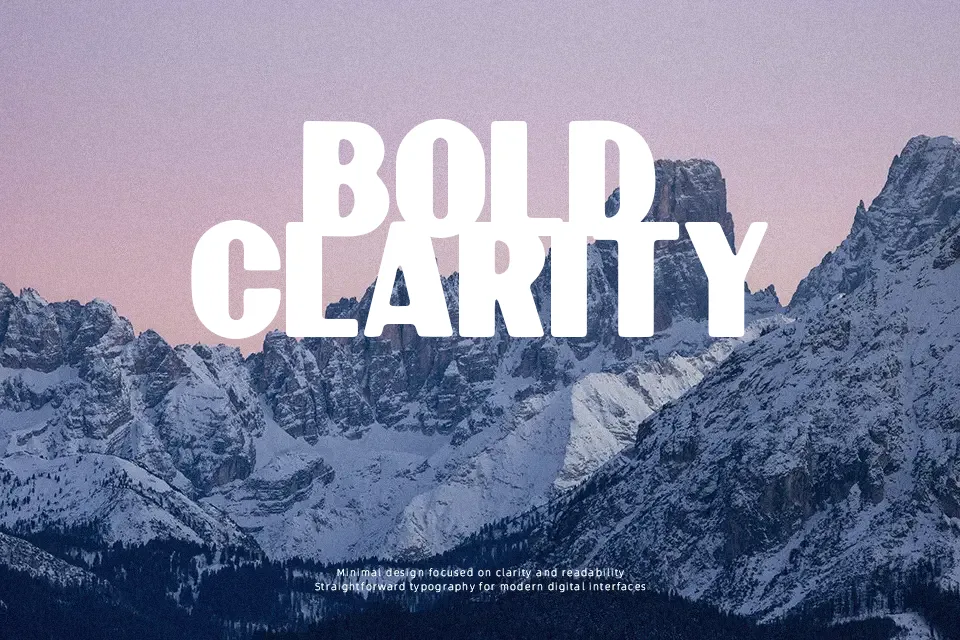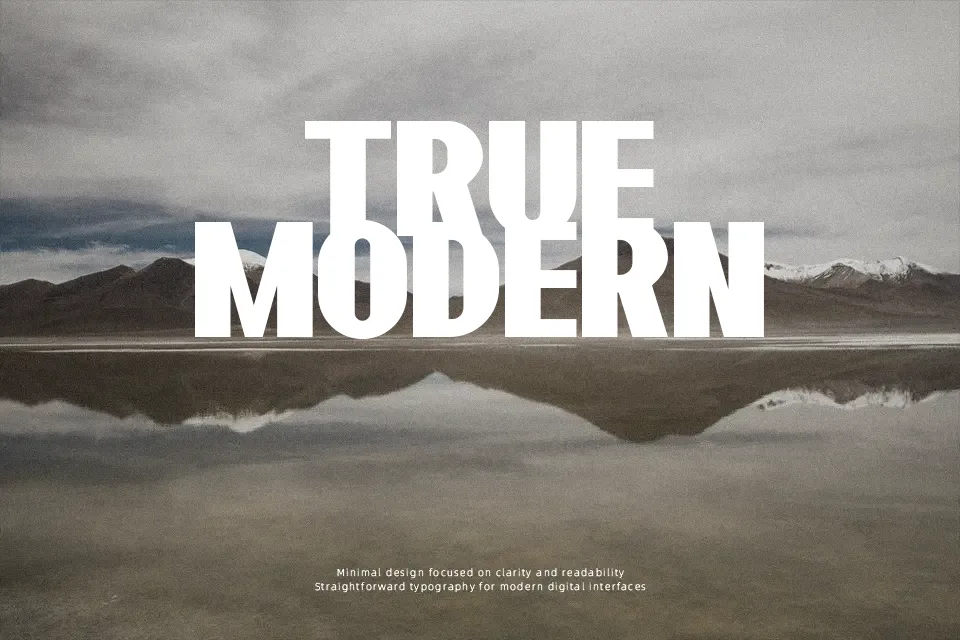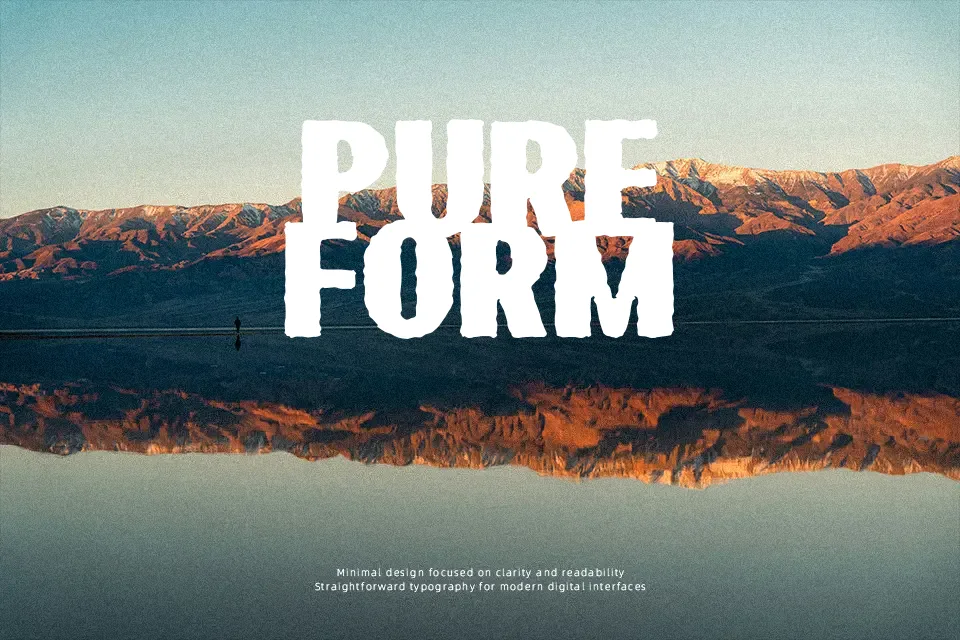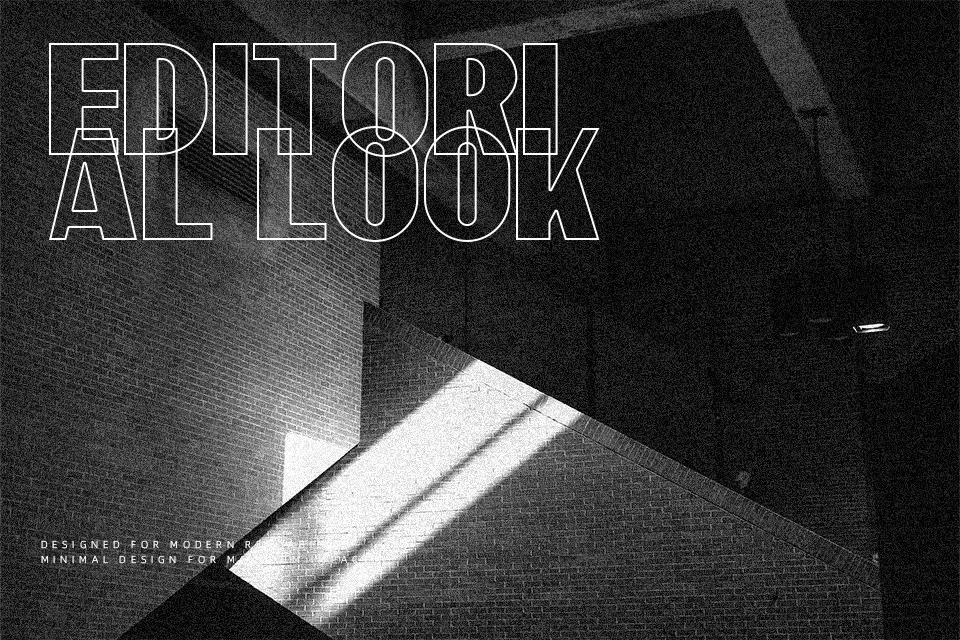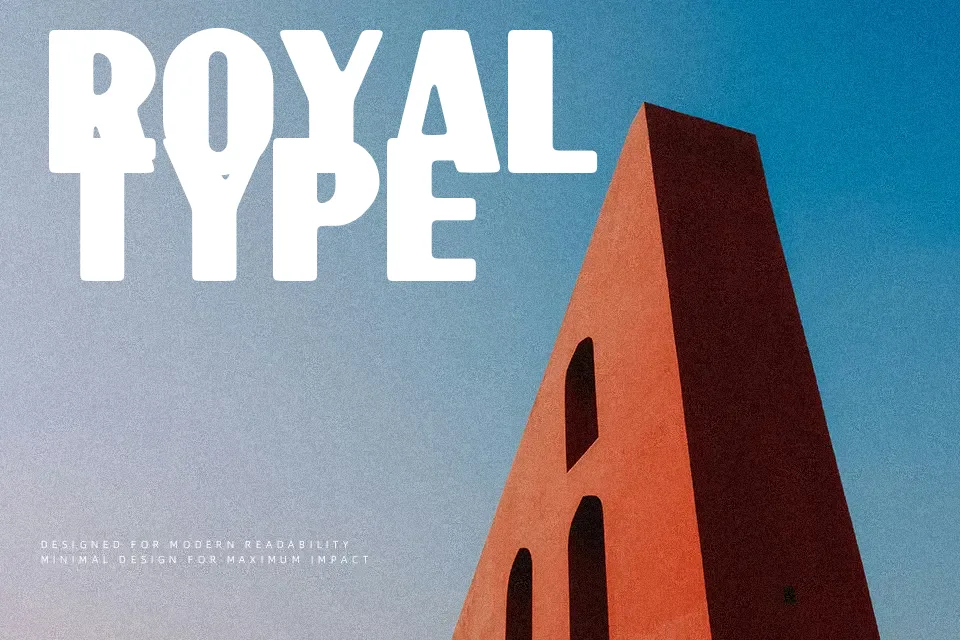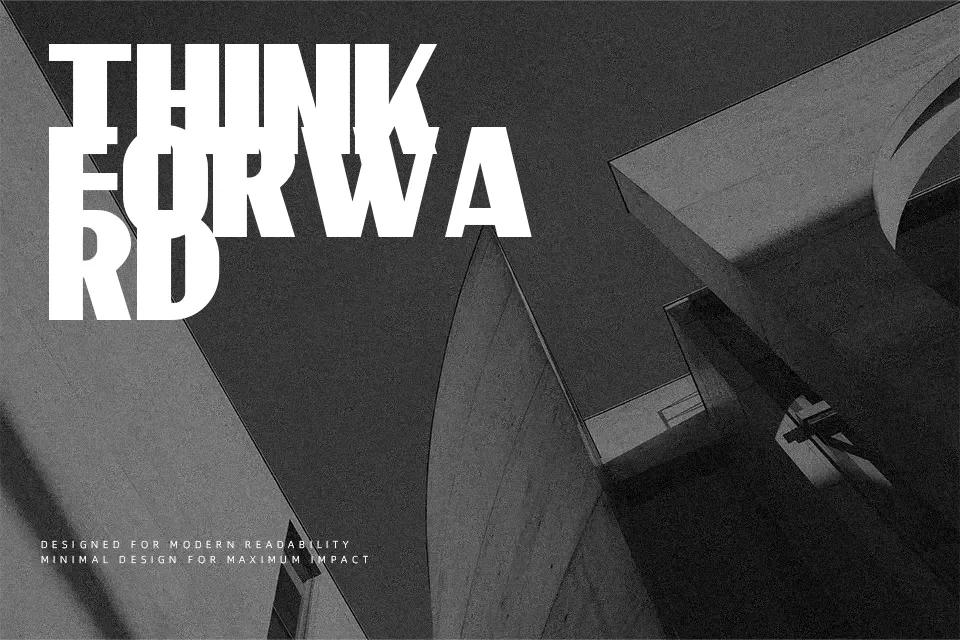
Bardon Font
Designed by Sabrcreative
Bold strokes, tight spacing, and a chunky extra-bold weight make Bardon feel more expressive than most sans serifs in its weight class. The four demo variants — Clean, Rounded, Rough, and Outline — each shift the character noticeably: the Rough version leans into worn texture, while Rounded softens the edges for a friendlier read. Realistically, this font shines on poster headers, vintage-style branding, and product packaging where it has room to breathe at large sizes. The glyph count in the demo is limited to around 96 characters, which rules out multilingual or symbol-heavy projects. If you need it for a commercial project, a license purchase is required — the demo is strictly for personal testing.
Best For:- Vintage-style poster and event headers
– Craft product or artisan brand packaging
– Music merchandise or album cover typography
– Social media graphic headlines with retro aesthetic
Not Ideal For:- Body text or long-form reading at small sizes
– Multilingual projects requiring extended character sets
– Corporate or formal document design
Perfect for branding, editorial, and headline, with a bold and display style.